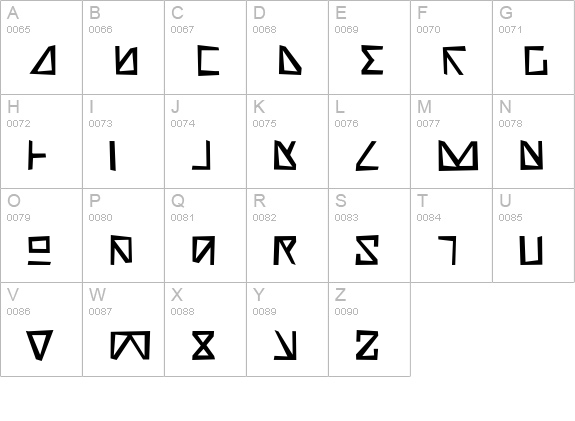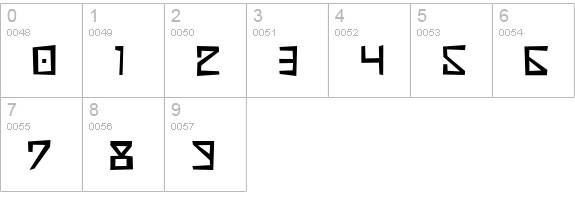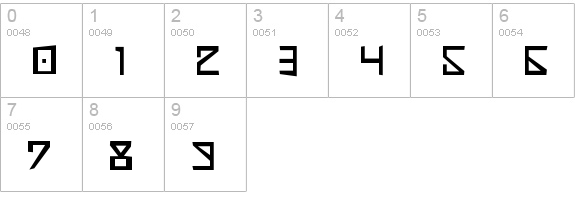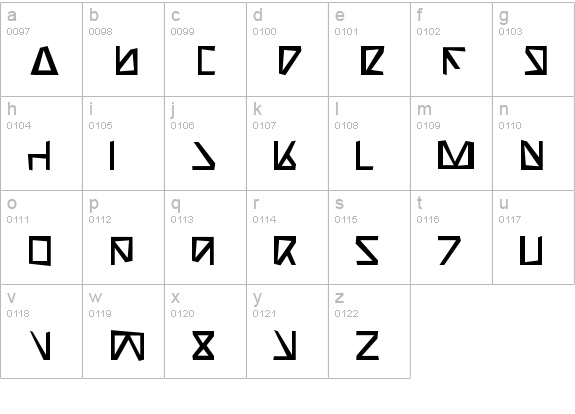
Nick Turbo Rough font is a bold and energetic typeface that exudes a sense of speed and power. Its rough edges and sharp angles give it a rugged and industrial look, perfect for conveying a sense of strength and dynamism in your designs. The font features a unique combination of modernity and edginess, making it a versatile choice for a wide range of projects. This font is available for free download at FontsMarket.com, allowing you to easily incorporate its bold and striking style into your creative work without any cost. Whether you're designing a logo, poster, website, or any other project that requires a strong and impactful font, Nick Turbo Rough is sure to make a memorable impression. Download it today and unleash the power of this captivating typeface in your designs.